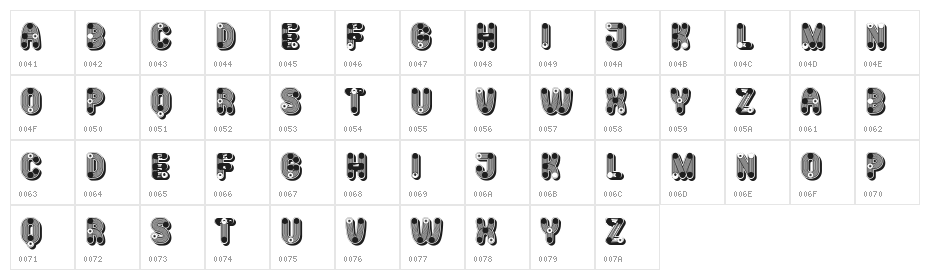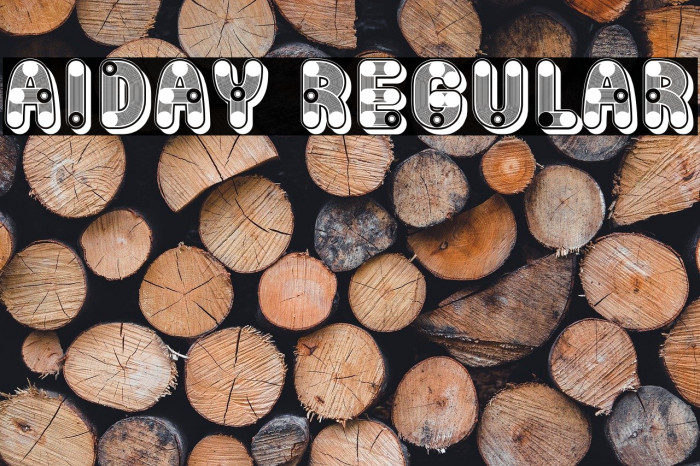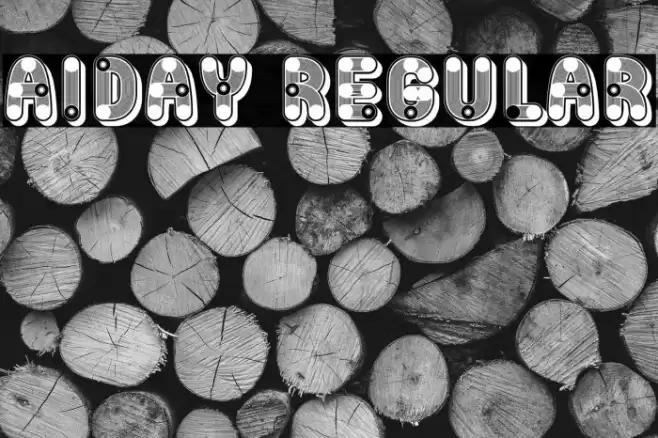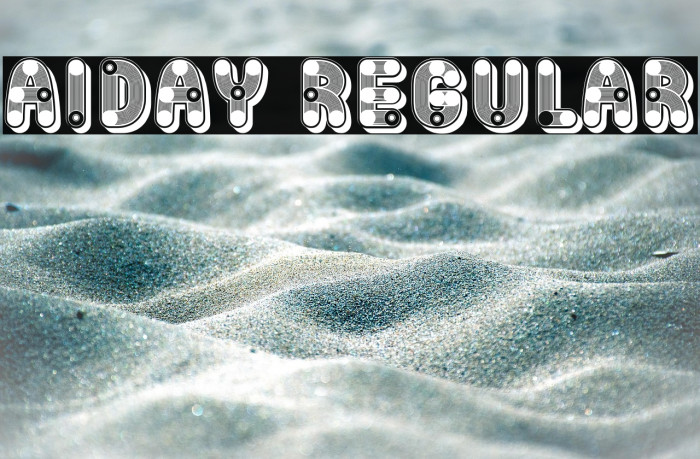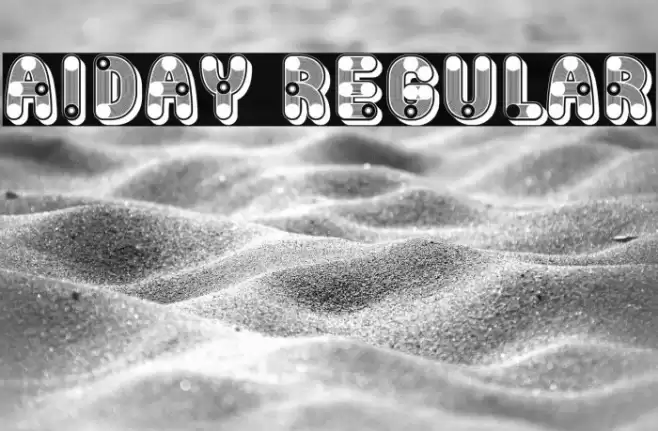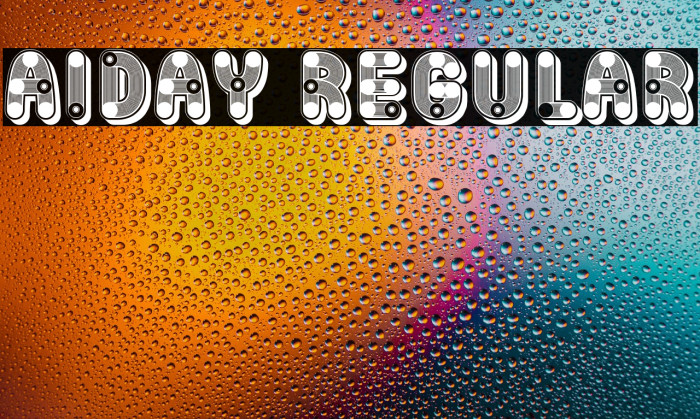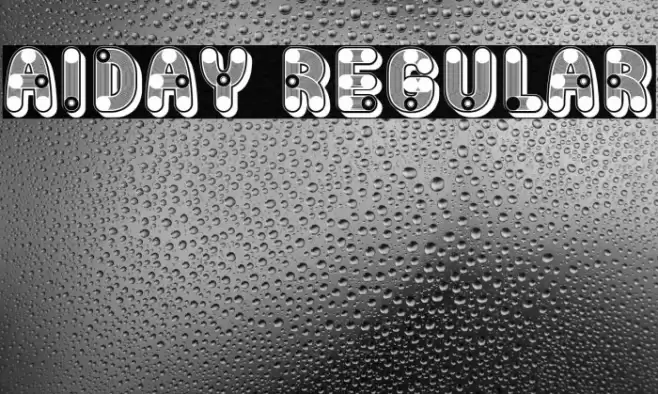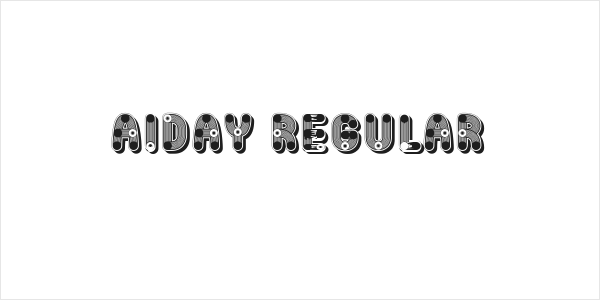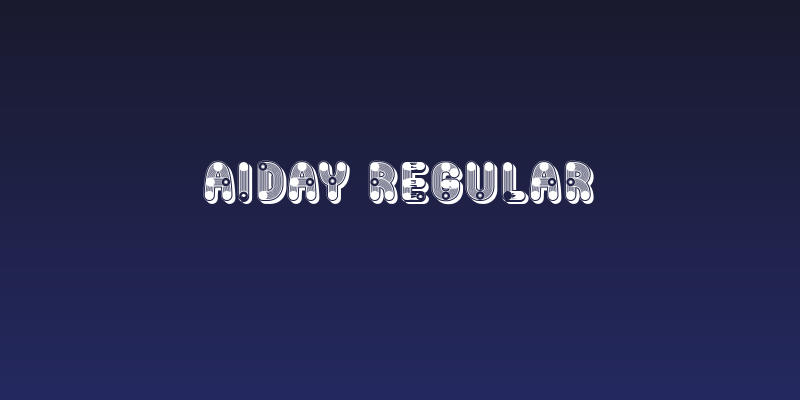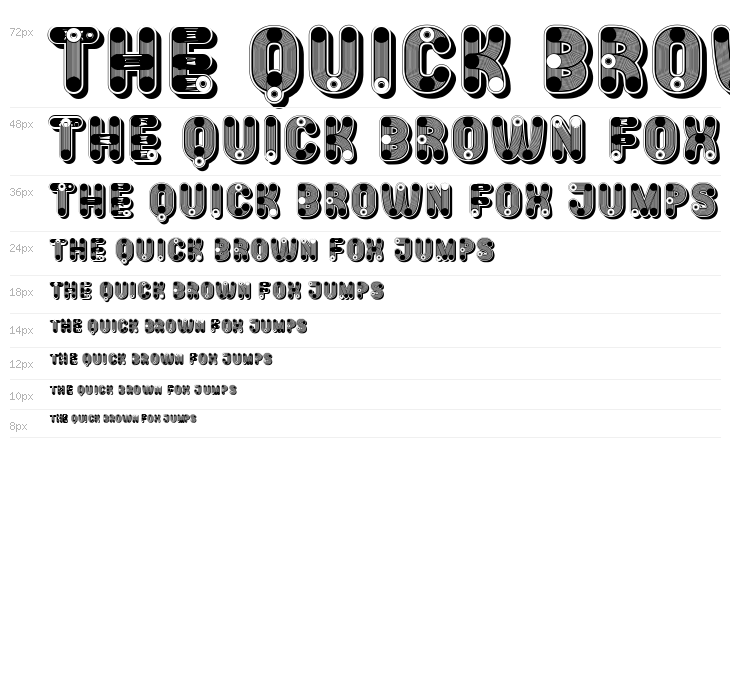
Aiday Regular Font
Aiday Regular Description
This font features a bold and playful design with a unique, layered appearance. Each character is composed of multiple overlapping shapes, creating a sense of depth and dimension. The use of contrasting colors and patterns within the letters adds a dynamic and eye-catching quality. The font's rounded edges and whimsical style make it suitable for creative and informal applications. Its decorative nature is enhanced by the intricate detailing within each letter, making it stand out in any design. The overall look is modern and artistic, perfect for projects that require a touch of fun and creativity.
| Proposed Projects | Ideal for children's books, playful branding, event posters, and creative digital media. |